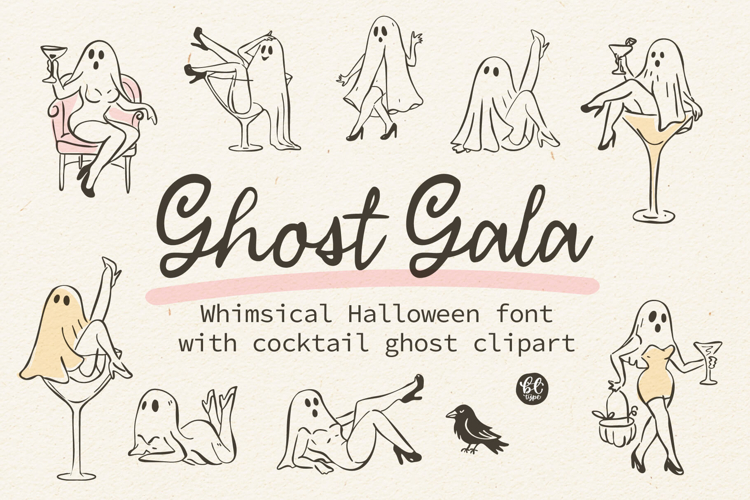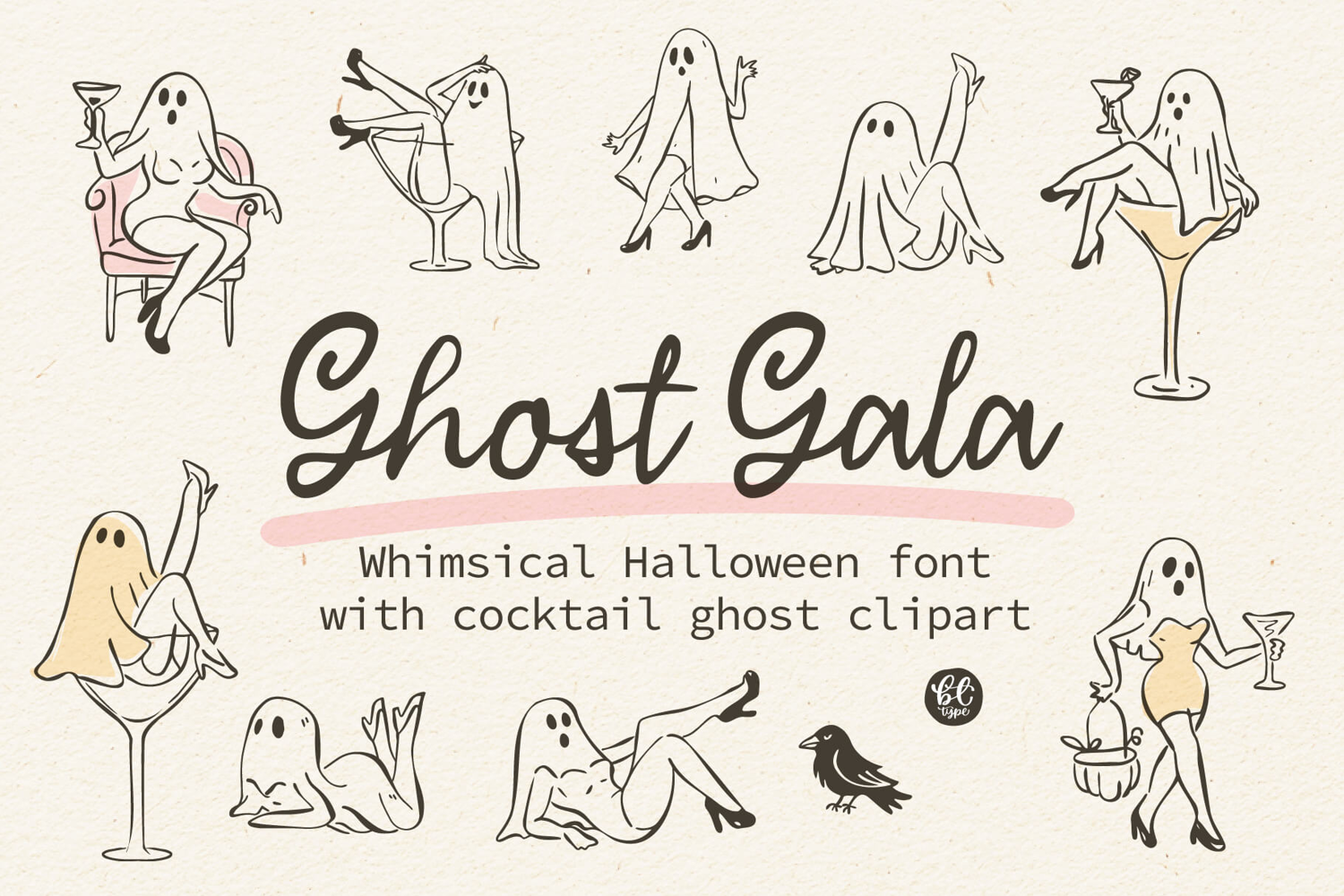
Ghost Gala - A Whimsical halloween font
💚 Meet Ghost Gala, a whimsical Halloween ghost font paired with a matching clipart bundle of cocktail-themed ghosts. Think martini ghost, ghost woman, and ghost in a martini glass, perfect for Girls’ Night, Bachelorette Halloween, party invites, menus, tote bags, shirts, stickers, and social posts.